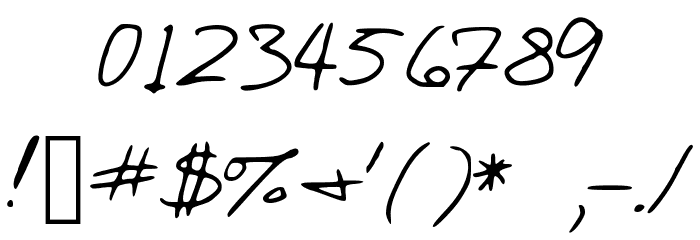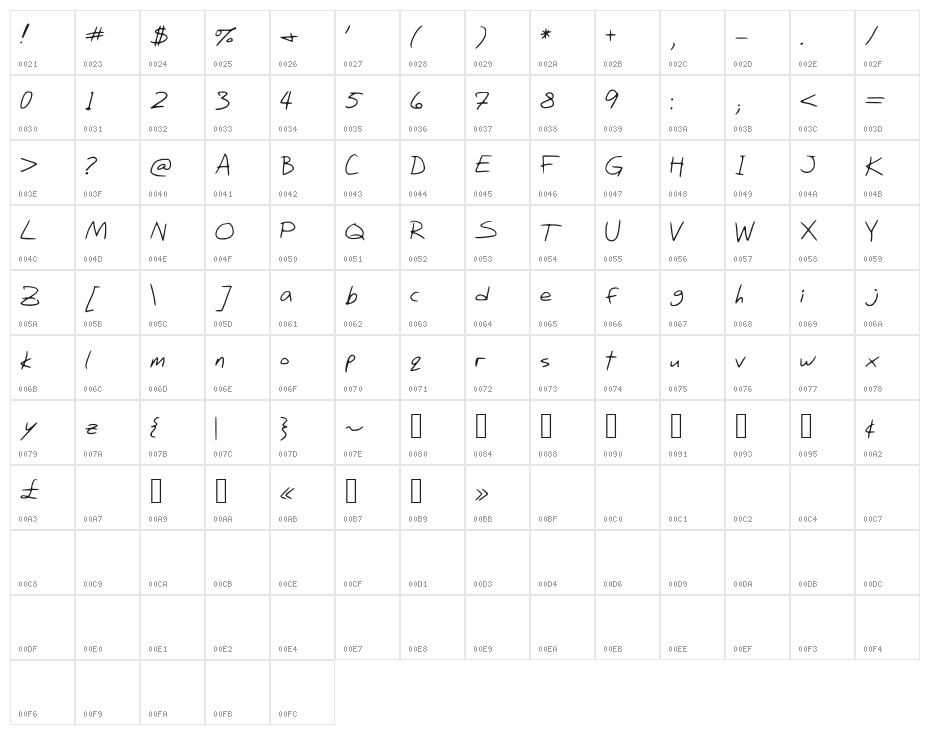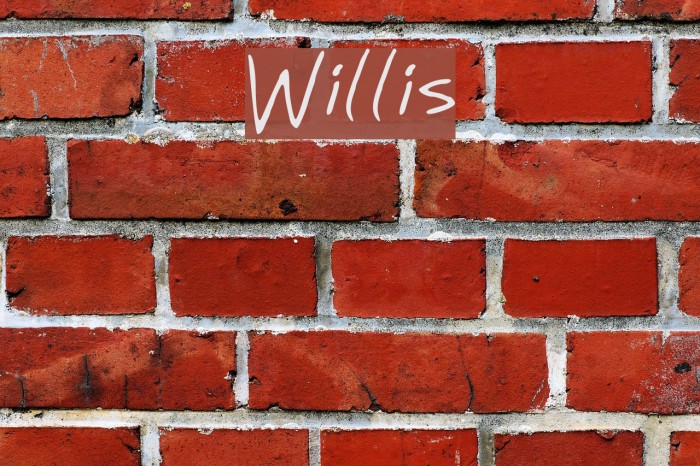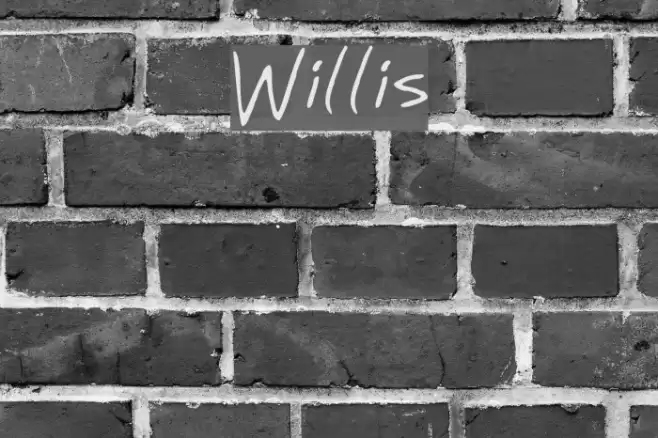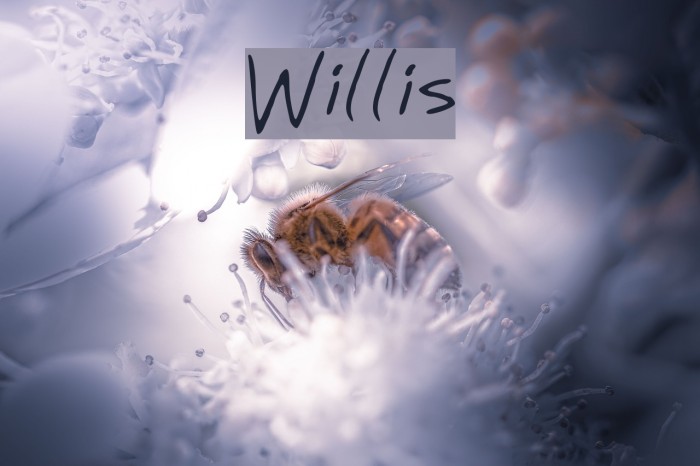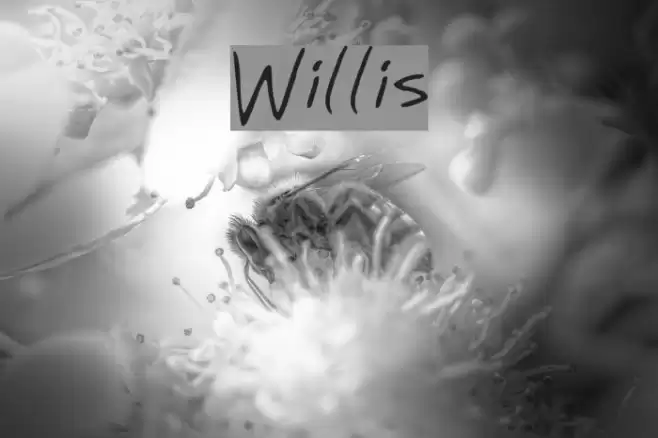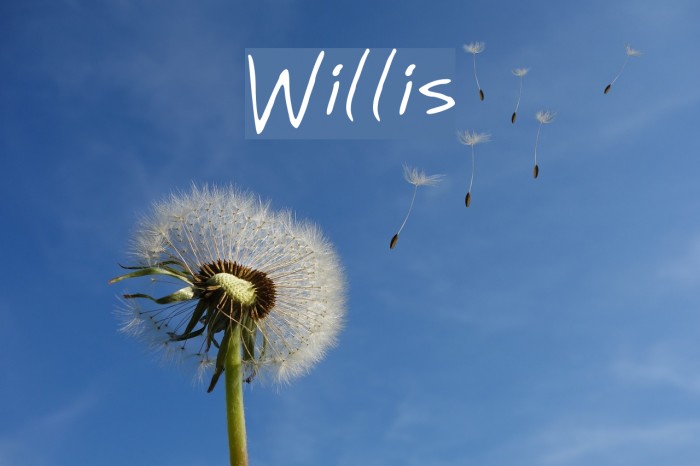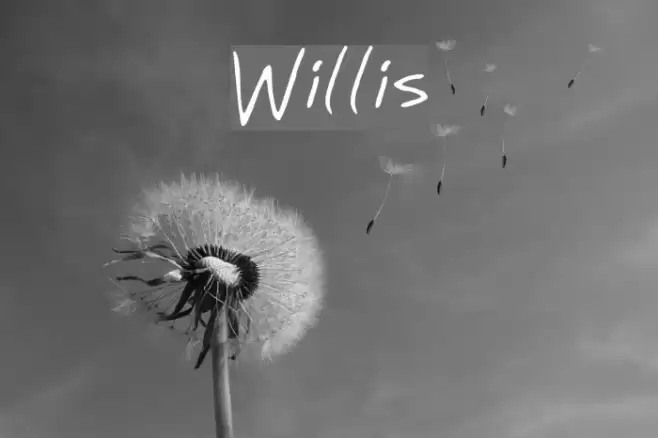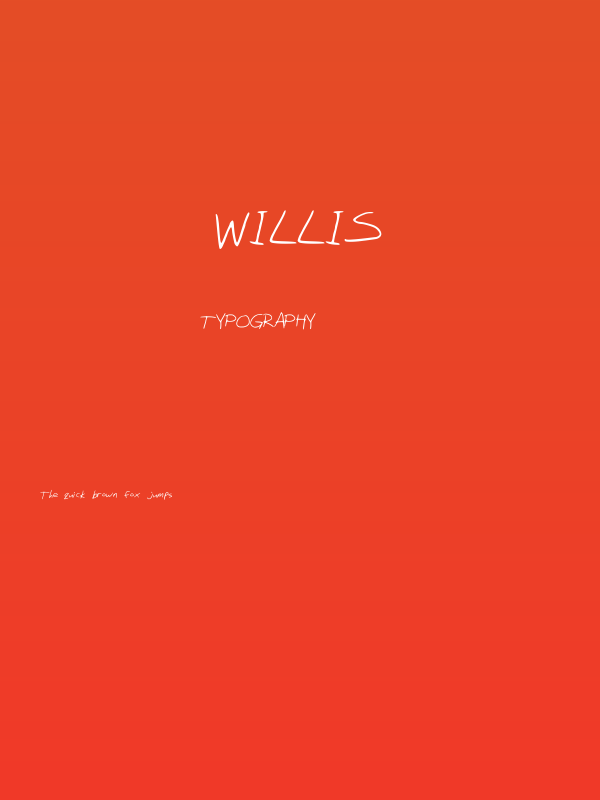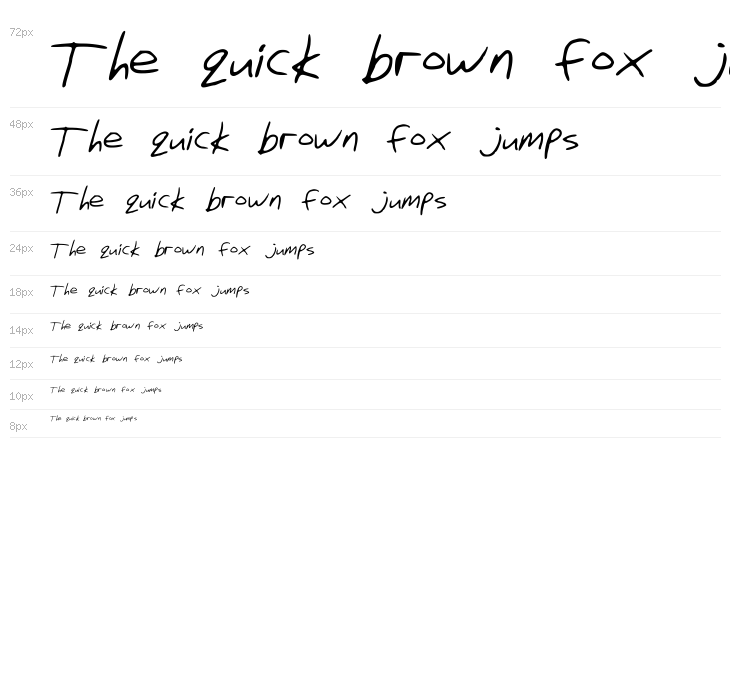
Willis Font
Willis Description
This font exudes a casual, handwritten style that mimics the fluidity and spontaneity of natural handwriting. The characters are slightly slanted, adding a dynamic and informal touch. The strokes are uneven, with varying thickness, giving it a personal and authentic feel. The uppercase letters are bold and prominent, while the lowercase letters maintain a consistent flow, enhancing readability. Numbers and special characters follow the same handwritten aesthetic, ensuring uniformity across all glyphs. This font is perfect for projects that require a personal, approachable, and friendly vibe.
| Overall Style | Casual, Informal |
| Use Case | Logos, Invitations, Personal notes |
| Proposed Projects | Ideal for personal notes, invitations, greeting cards, and creative projects that require a personal touch. |